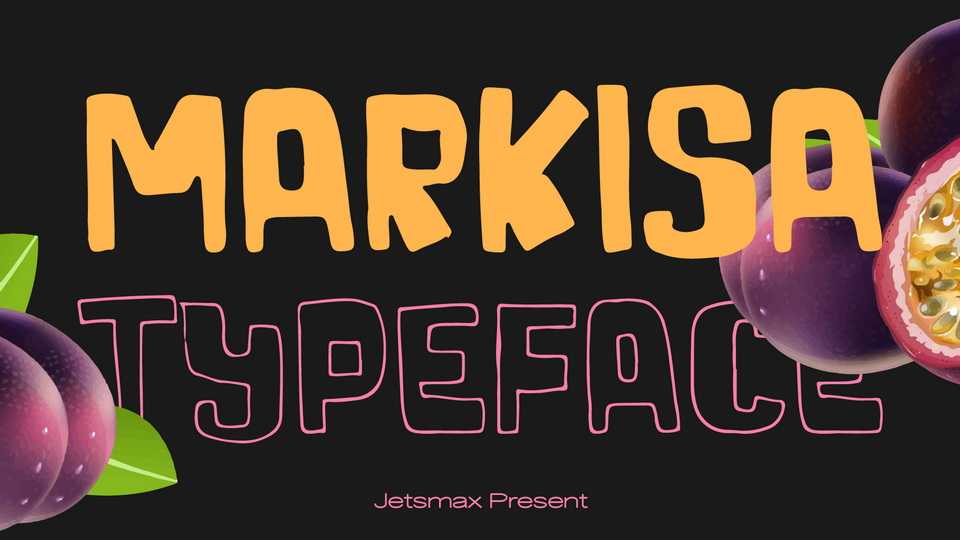
Download Markisa font, a contemporary display typeface that heavily influenced by modern and free hand drawn style. With its two different styles, Regular and Outline, Markisa will make your formal and non-formal design even more stand out!